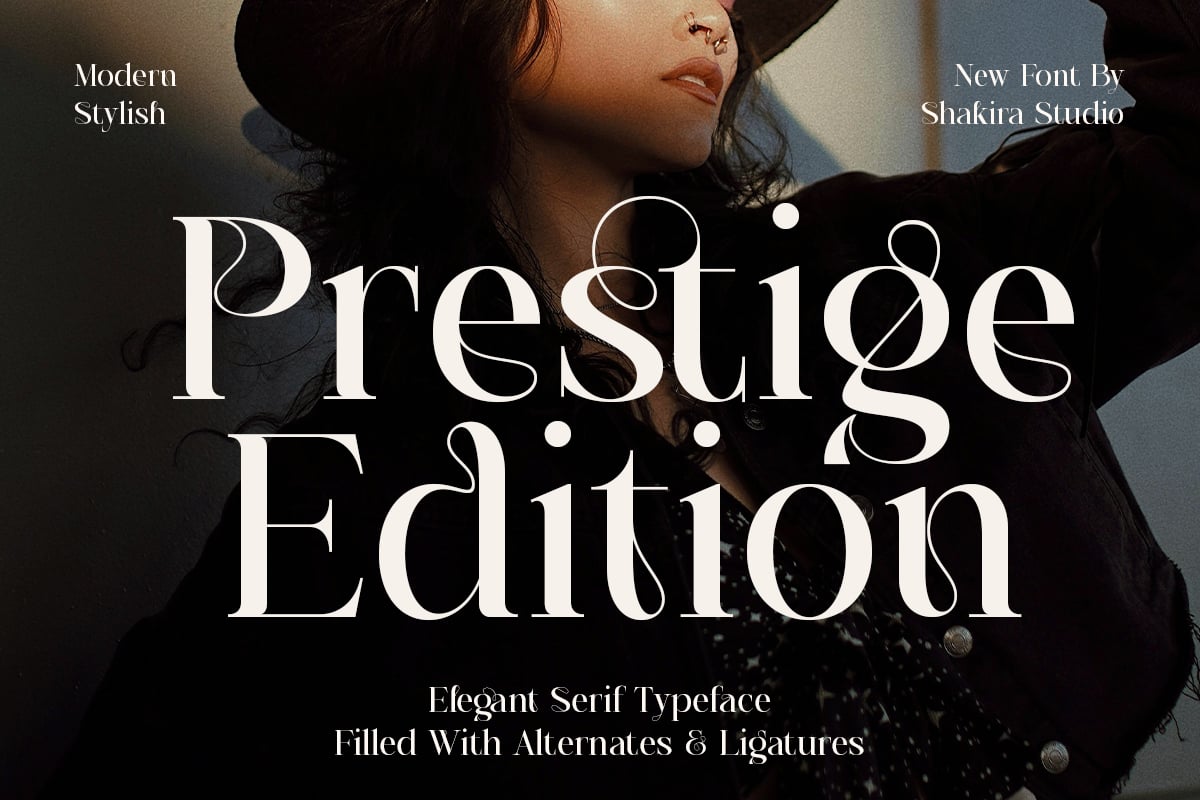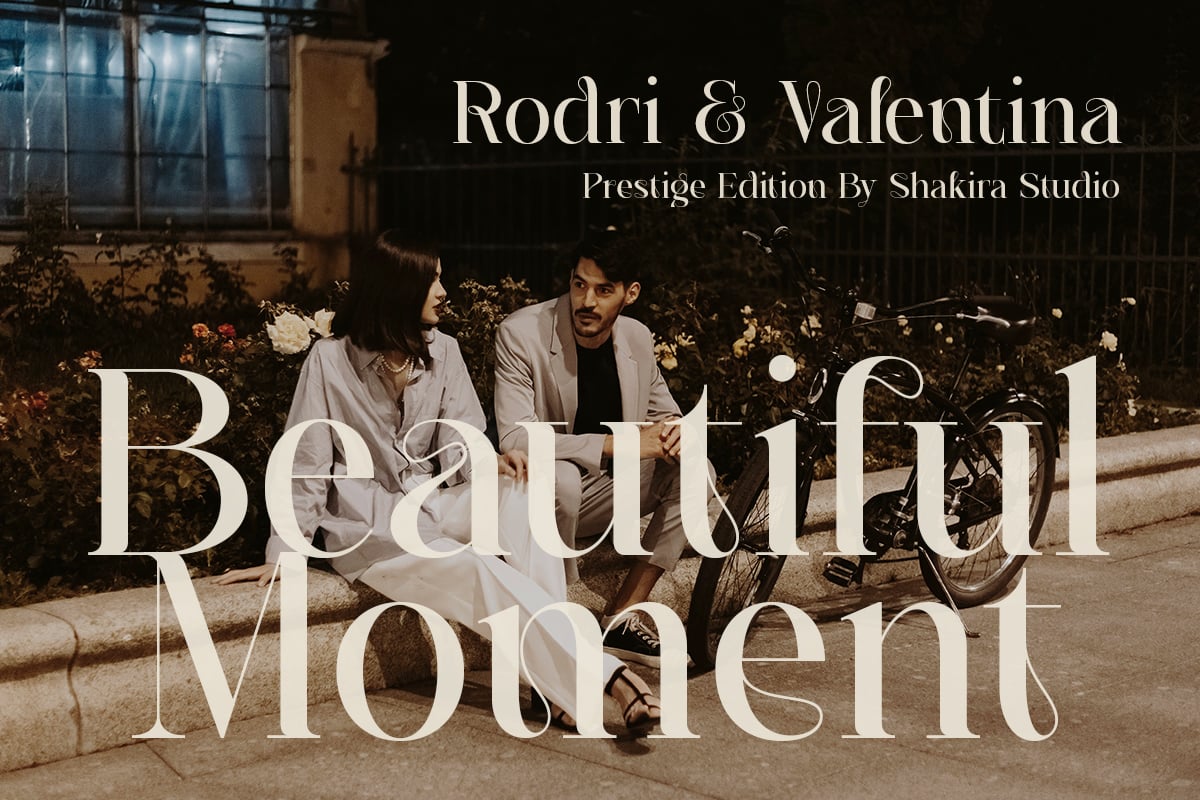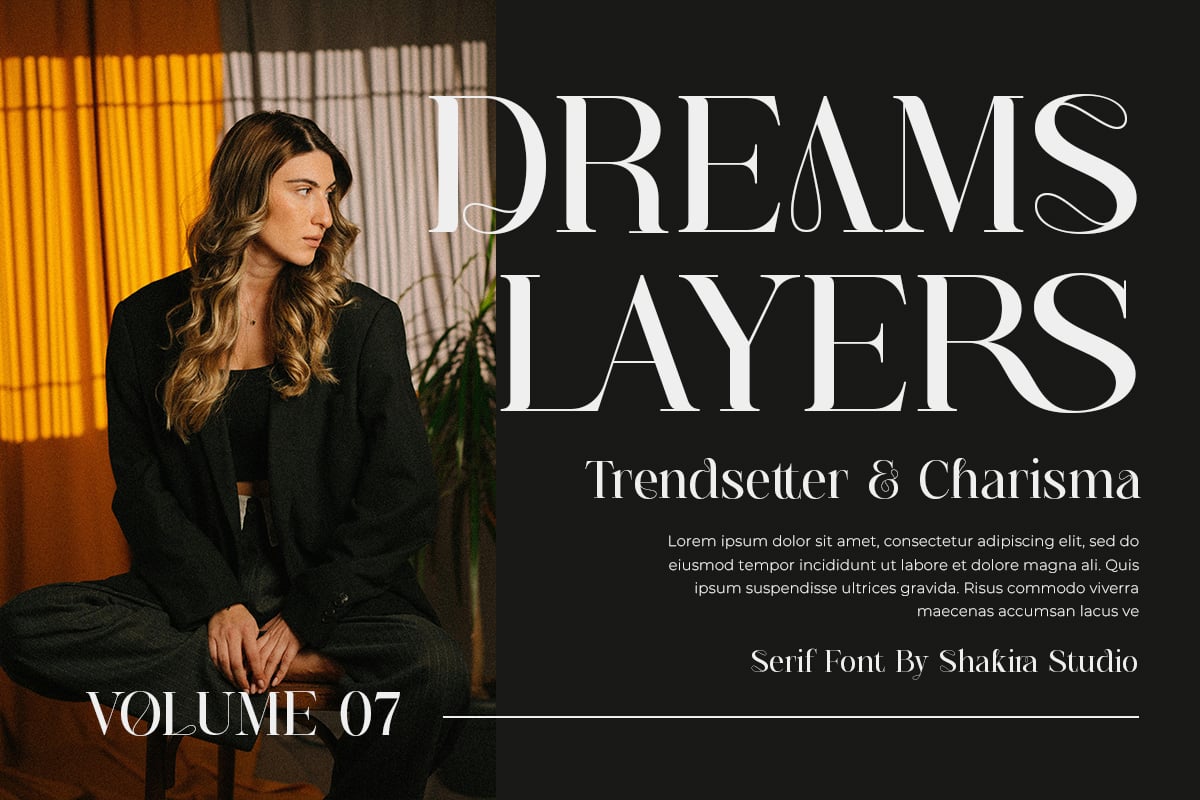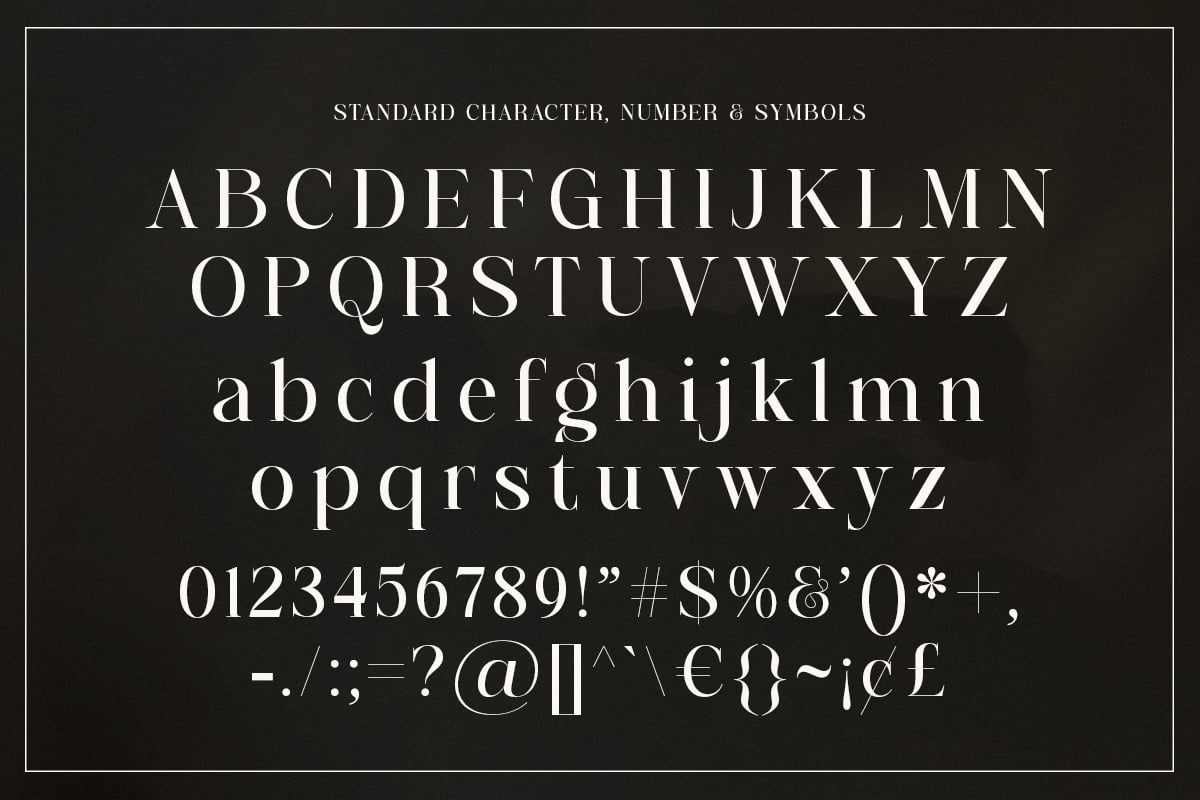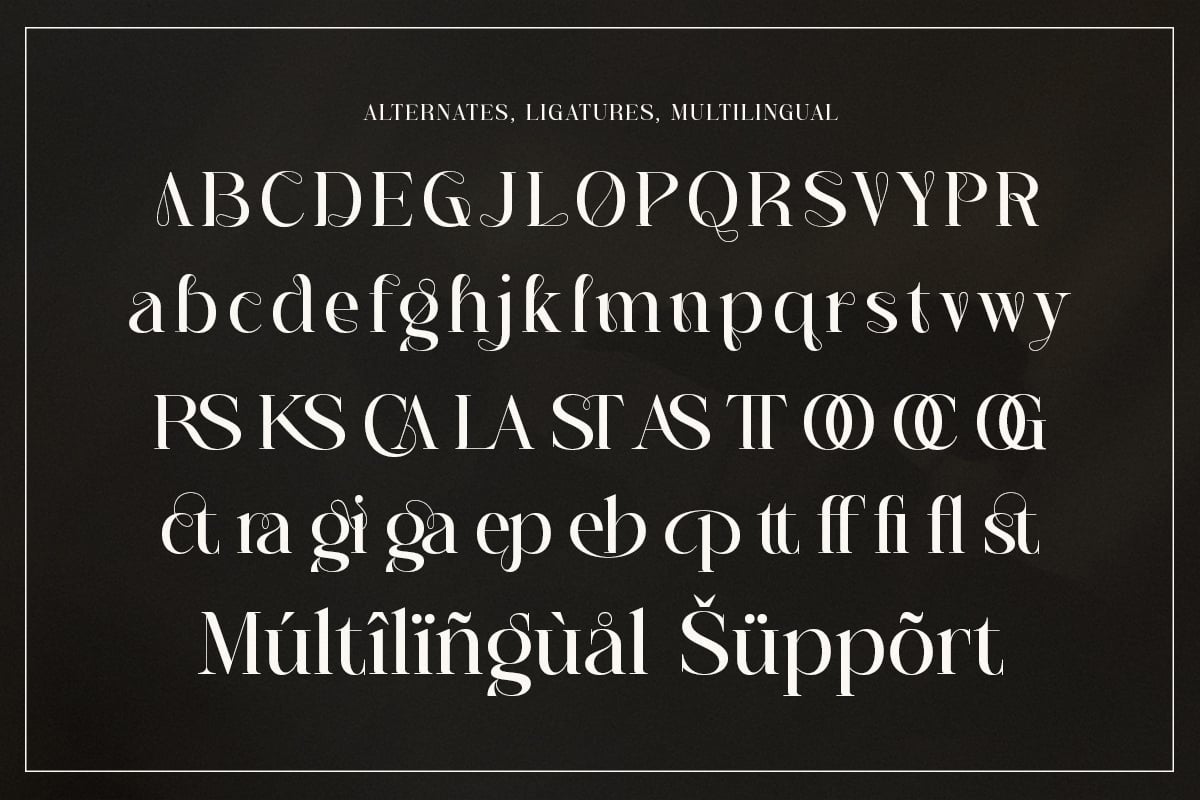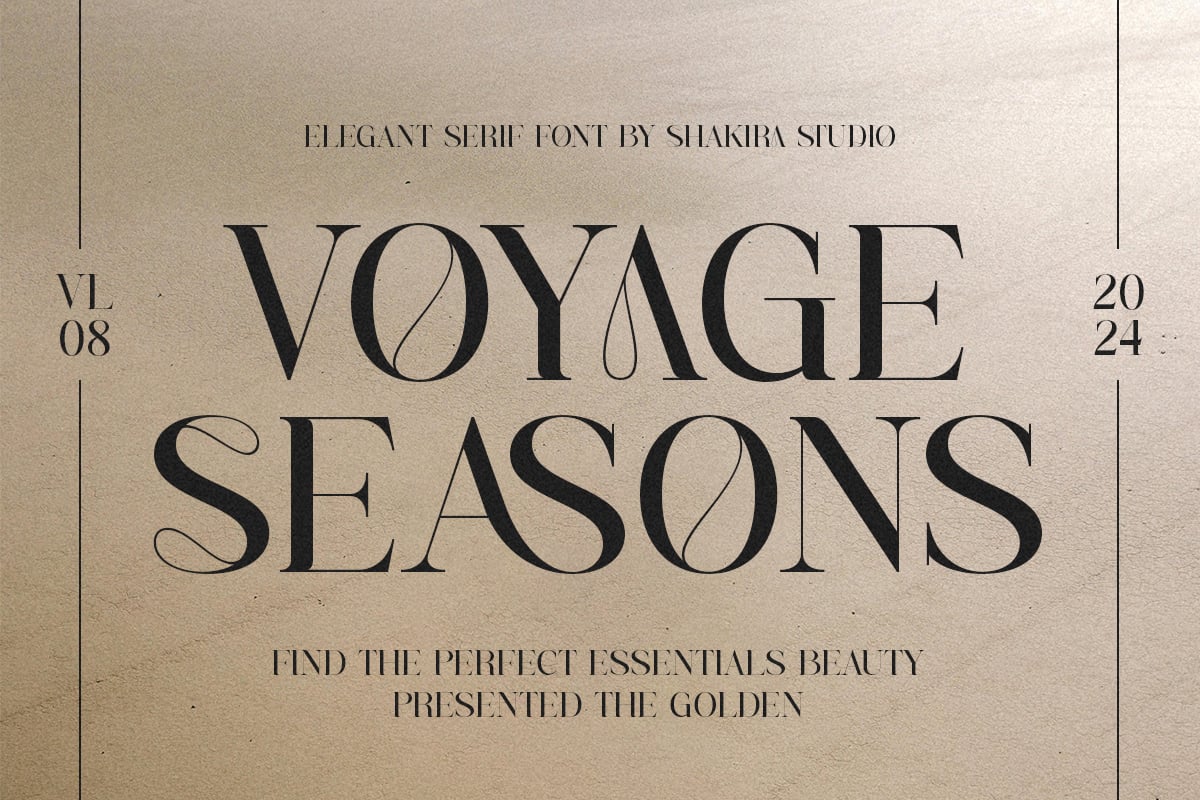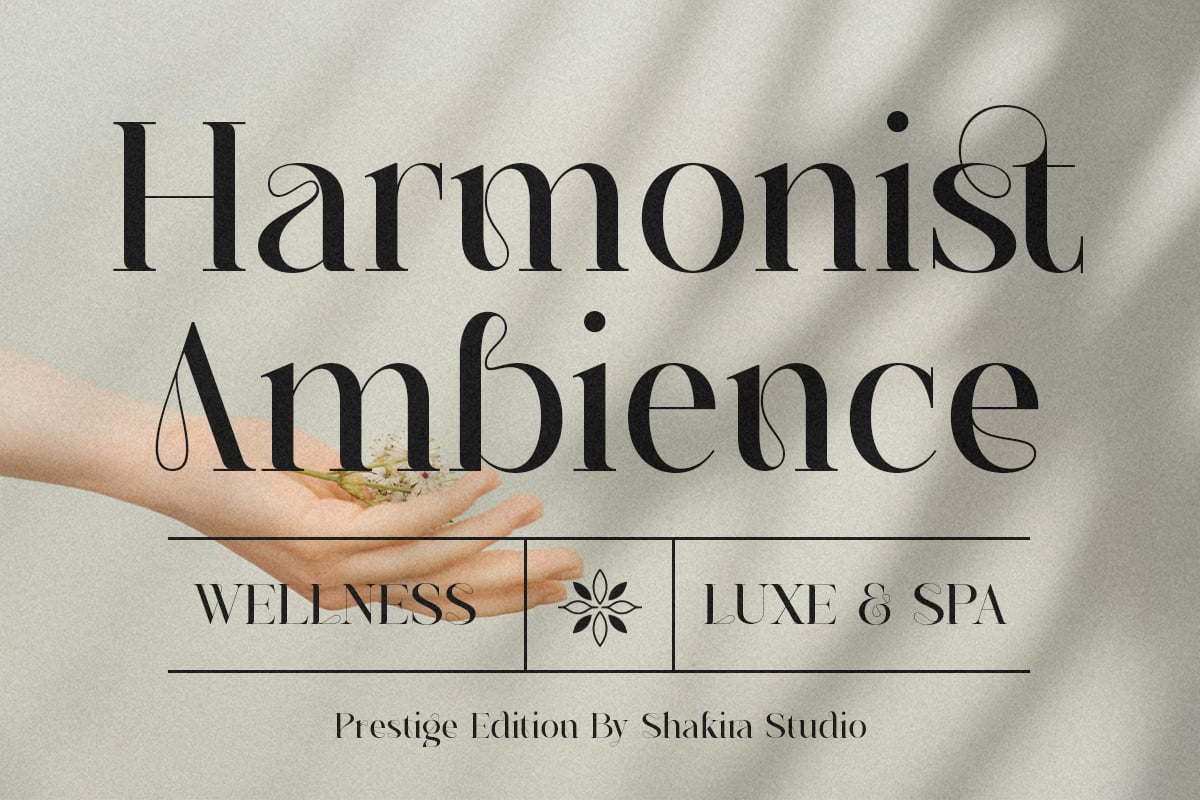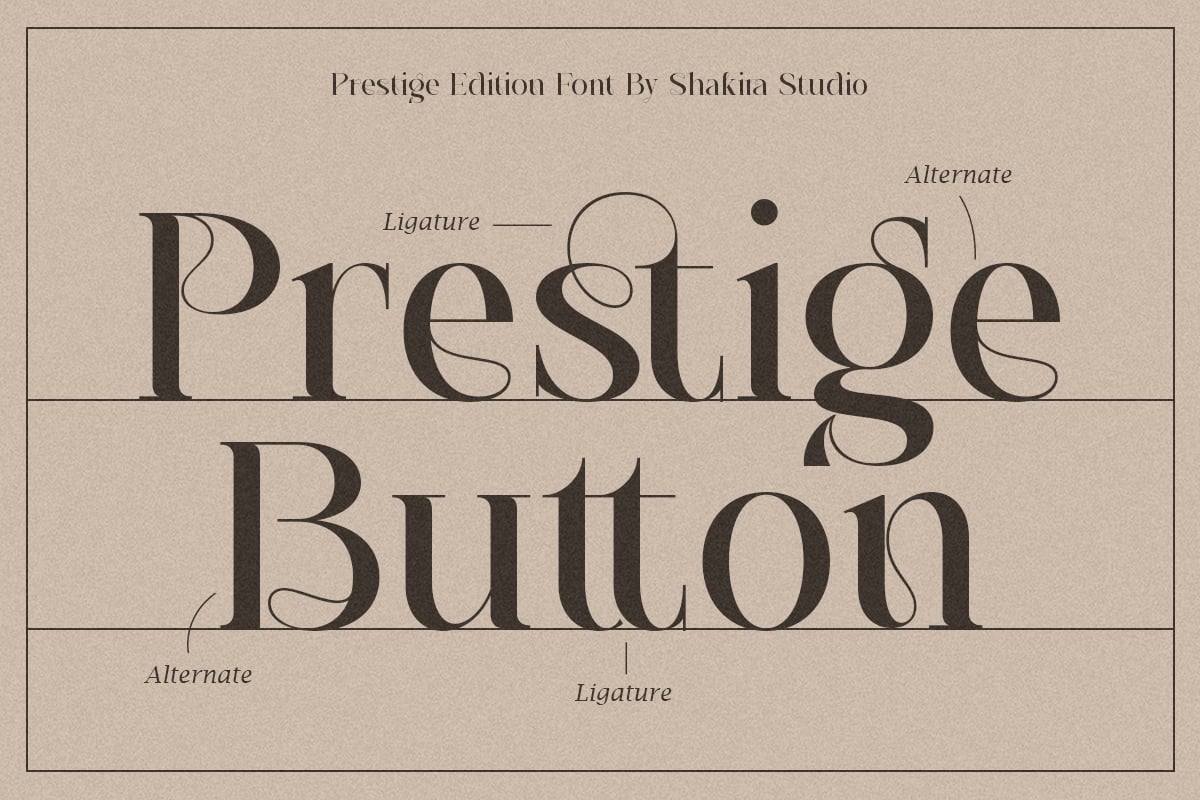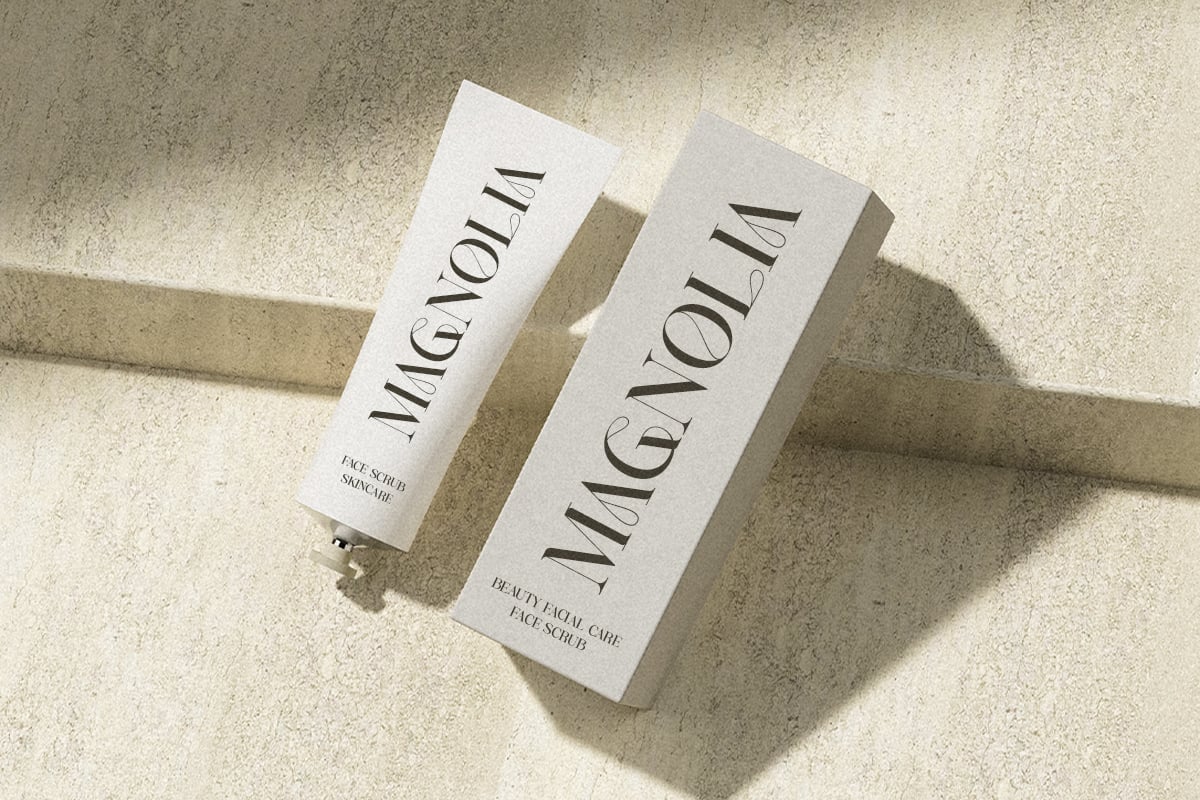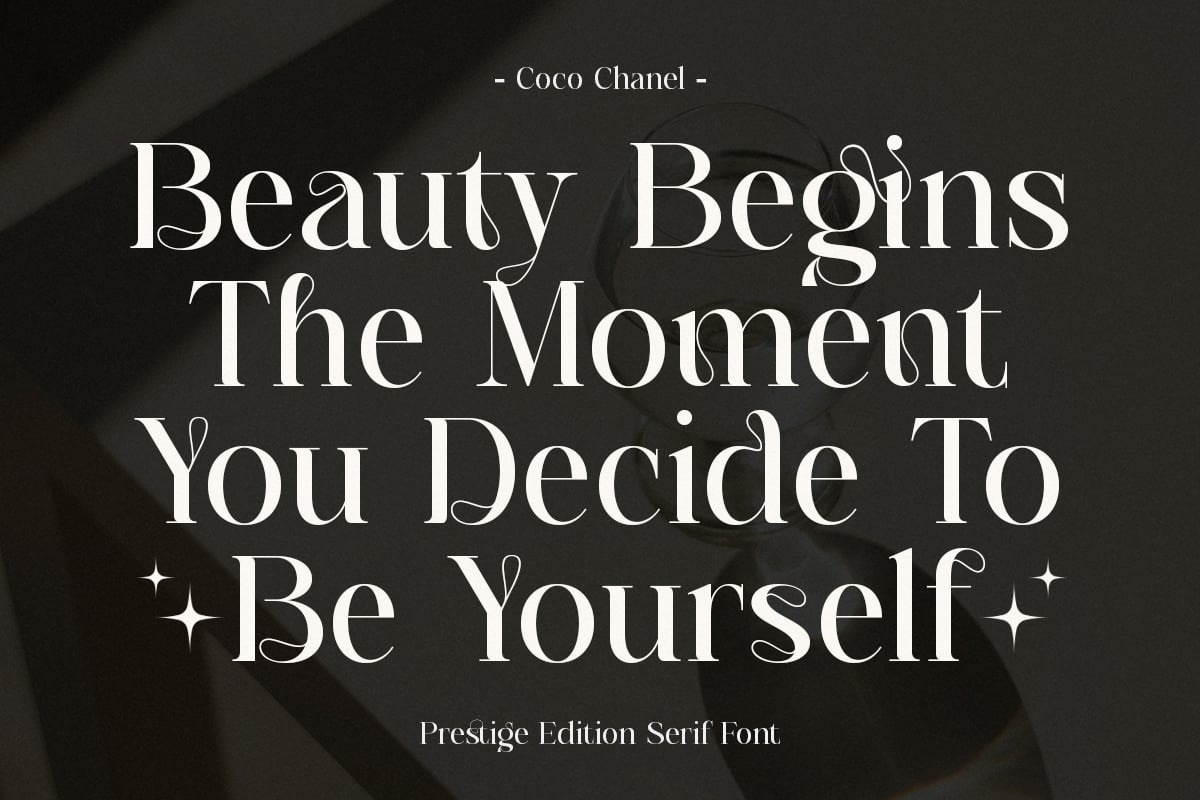
Prestige Edition – Elegant Luxury Font
“Introducing Prestige Edition, an elegant Display Serif font that exudes luxury and sophistication. This exquisite typeface is filled with a variety of attractive alternates and ligatures, making it perfect for high-end branding, fashion editorials, and upscale packaging. Prestige Edition is available in both regular and italic versions, offering versatility for your creative projects. Elevate your designs with the timeless elegance of Prestige Edition.”
- Regular & Italic
- Opentype features ( ligature, alternate )